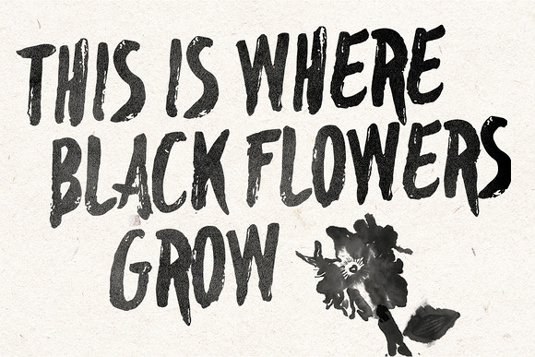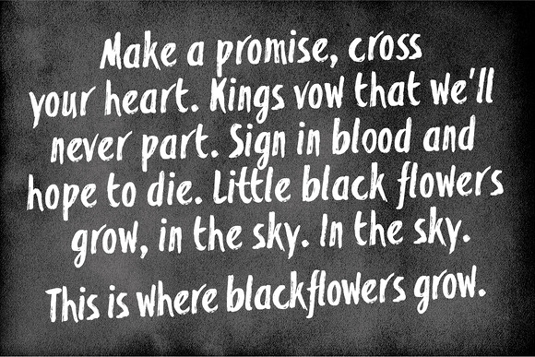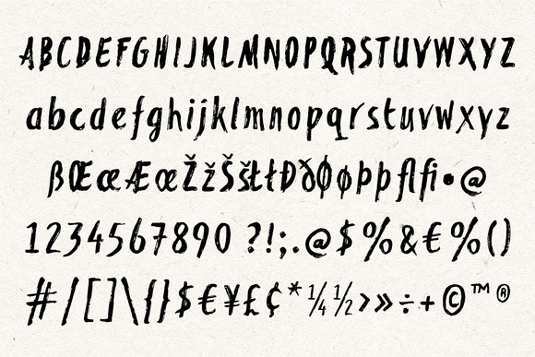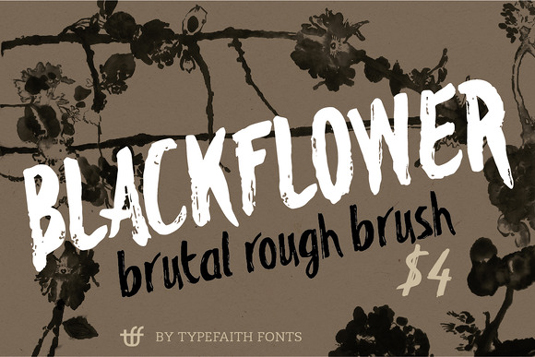
Font of the day: Blackflower
Every day we showcase the best fonts on the web. Today it's Blackflower from TypeFaith Fonts, which is free to download.
Blackflower from TypeFaith Fonts
Kicking our font of the day posts this week is handdrawn brush typeface, Blackflower. Created by the team at Dutch type foundry TypeFaith Fonts, Blackflower for is rough and messy, making it great for labeling, clothing, books, magazines and album cover designs.